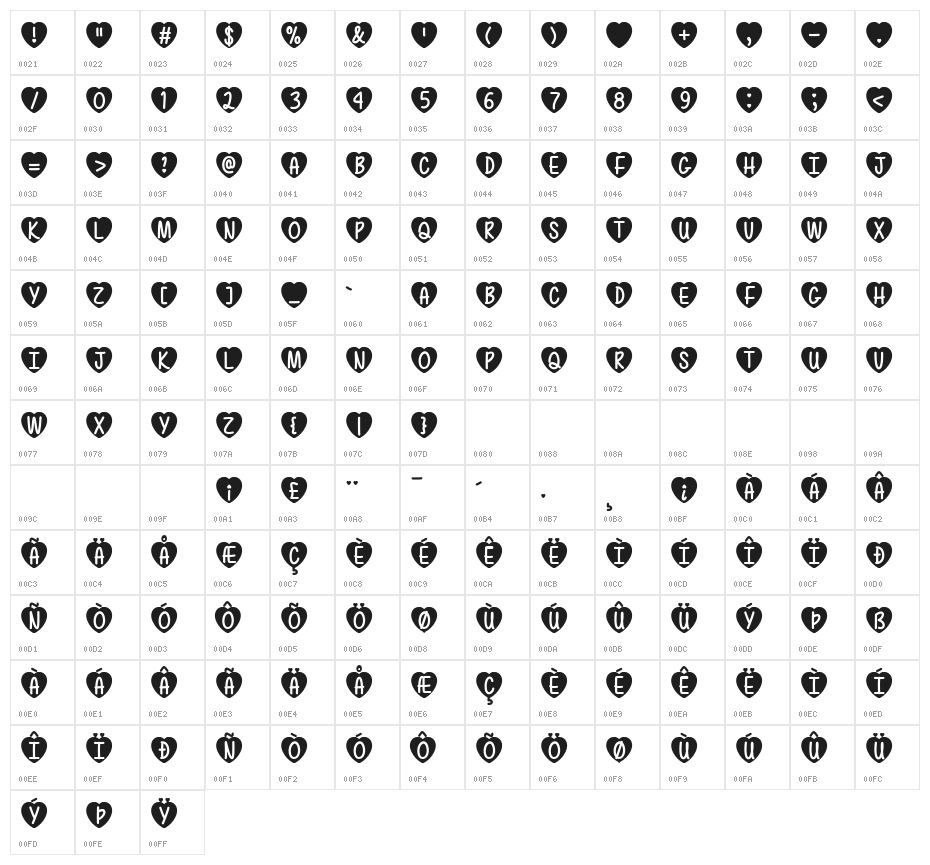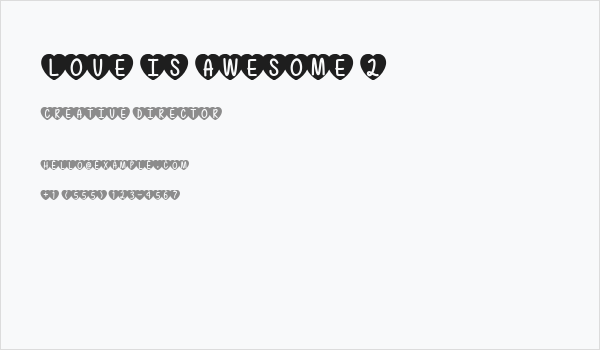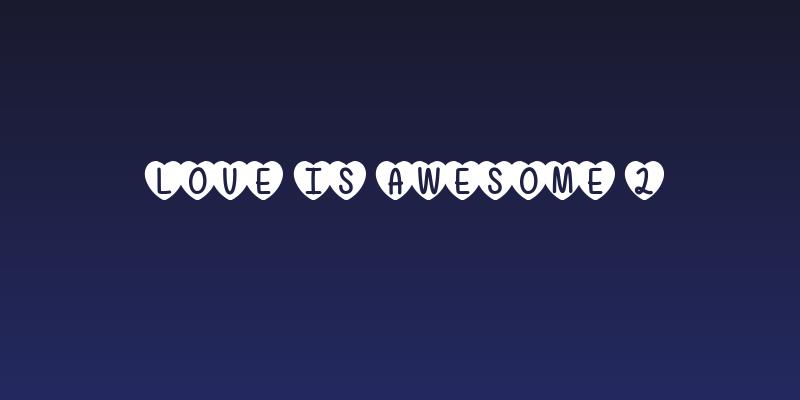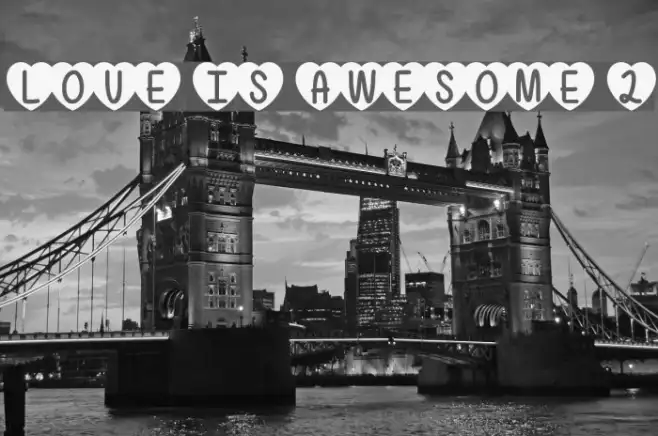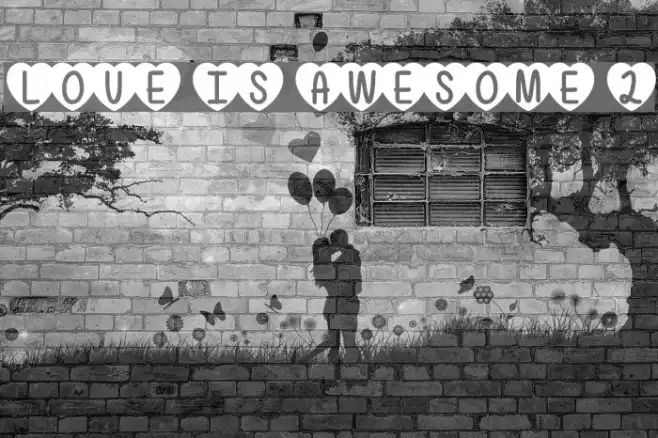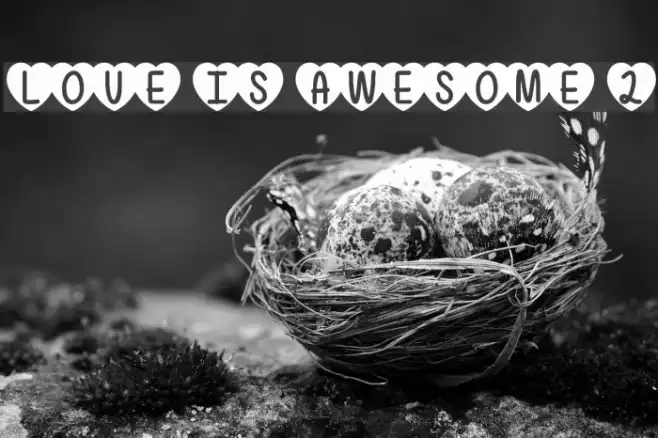
Love Is Awesome 2 Font
Love Is Awesome 2 Description
This playful and decorative font features characters enclosed within heart shapes, creating a whimsical and romantic aesthetic. The uppercase and lowercase letters, along with numbers and special characters, are all consistently styled with a bold, handwritten look. The heart-shaped background adds a unique touch, making it ideal for designs that require a fun and loving theme. The font's boldness ensures readability while maintaining its charming and distinctive appearance.
| Proposed Projects | Perfect for Valentine's Day cards, wedding invitations, love-themed posters, and playful branding projects. |